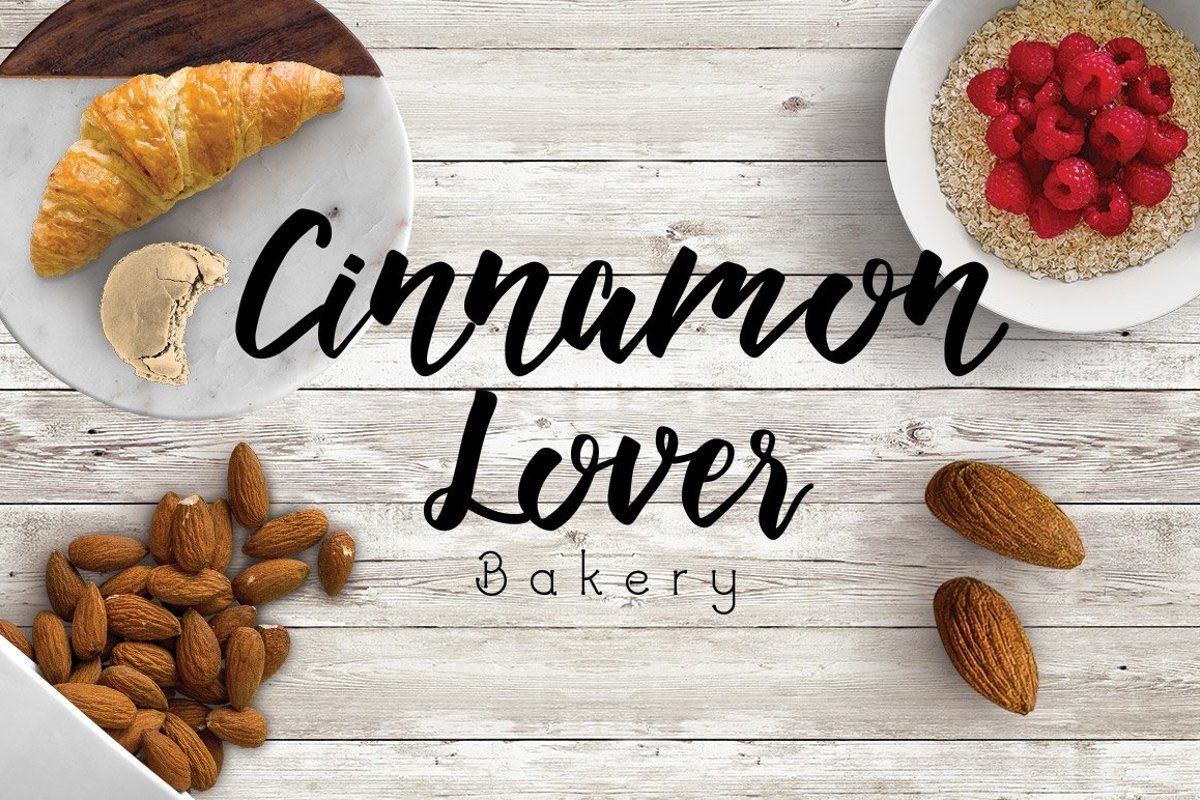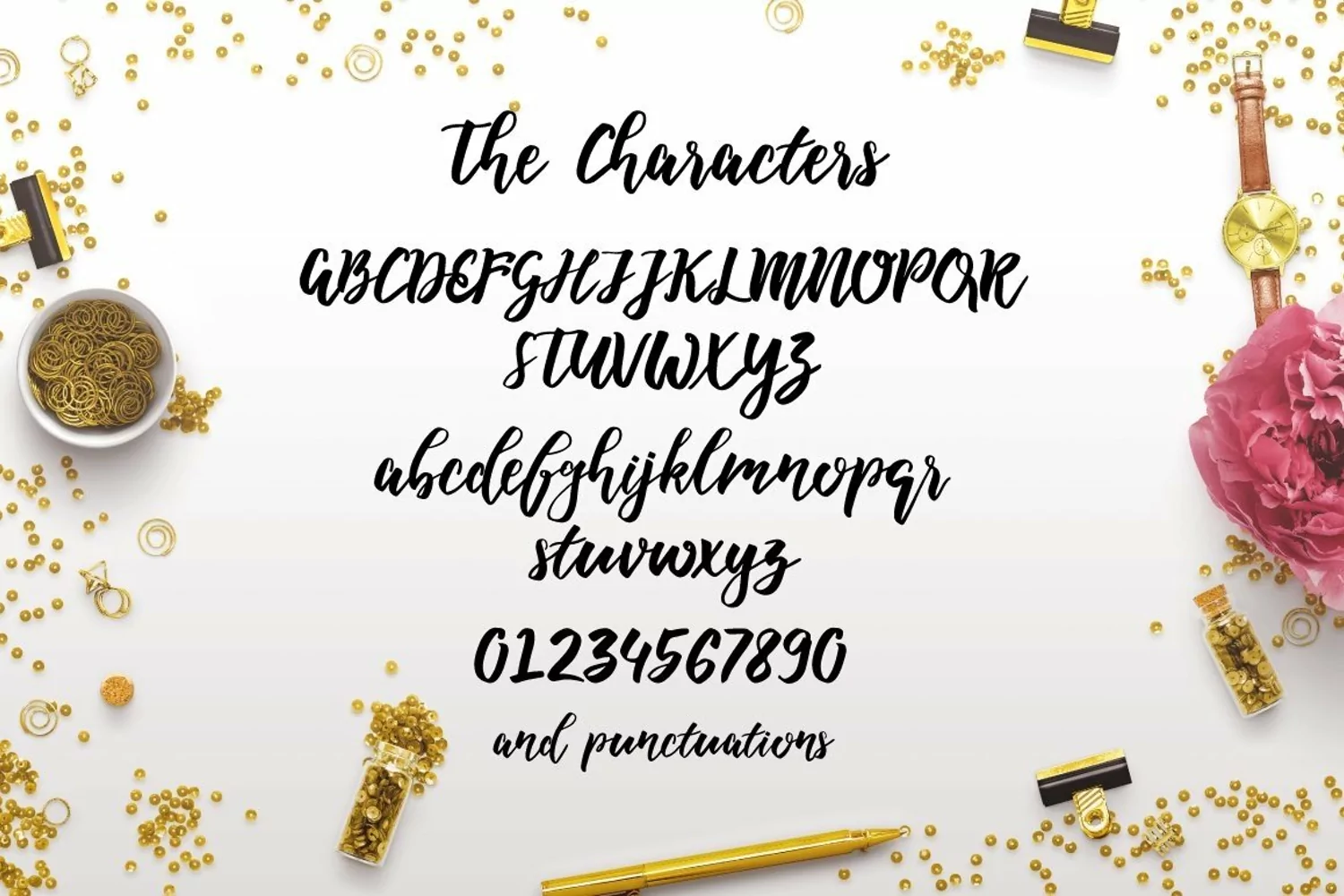
Adella is a perfect hand lettered script for you. You could use this font script for romantic vibes on your design. Use it for your logo, brand, menu, note book design, cards, t-shirt, invitation, mug, etc.